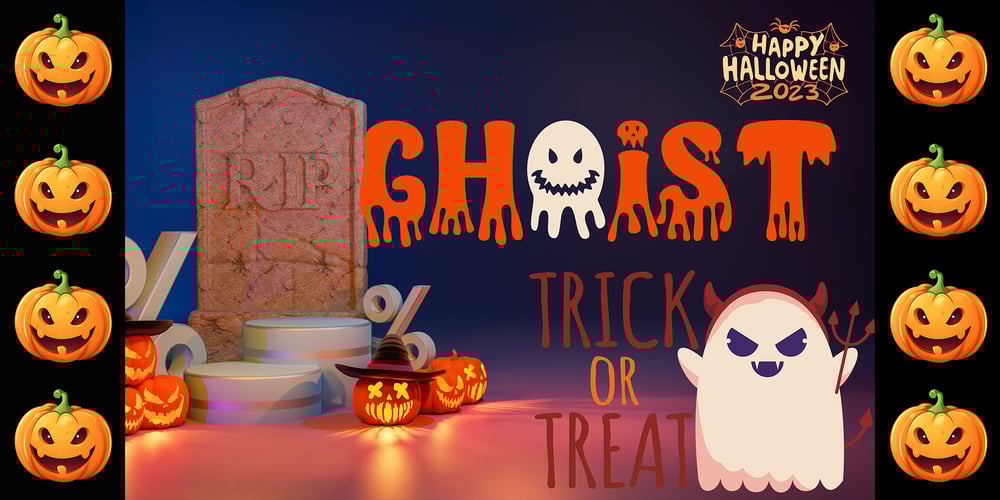
Ghoist Font Family was designed by Canden Meutuah and published by Canden Meutuah. Ghoist contains 1 styles and family package options. is a fun and unique display font, a cool scary font for Halloween and other scary themed activities. Add this unique and spooky display font to any of your creative ideas and watch how it makes it stand out! Enjoy, I hope you are satisfied with the results of my font. thank you